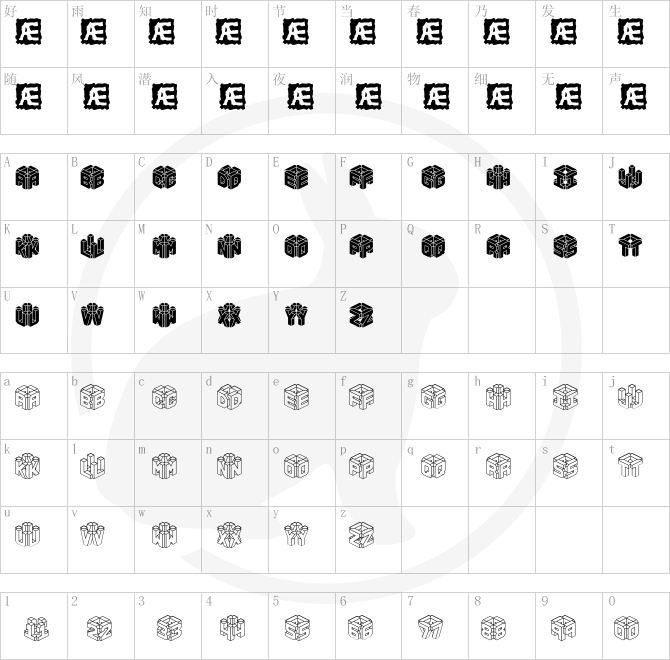
- Font Name:3D LET (BRK)
3D-LET-BRK(1).ttf is a very beautiful artistic font, 3D-LET-BRK(1).ttf is widely used in the design and printing of various books and pictures,3D-LET-BRK(1).ttf has a strong visual impact,3D-LET-BRK(1).ttf is a commonly used font in newspapers, magazines and books, and is used in posters, e-commerce Poster design, store design, logo design, font design and other fields.3D-LET-BRK(1).